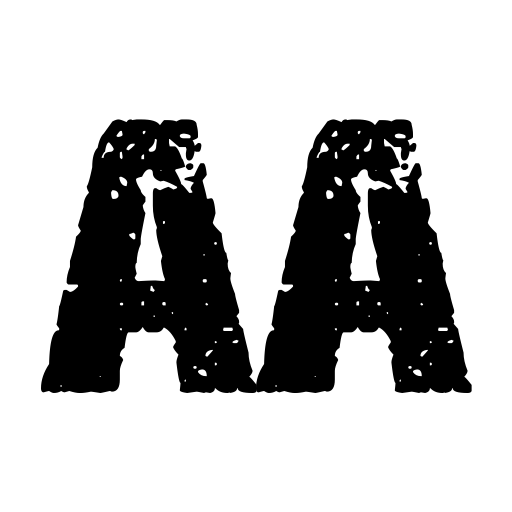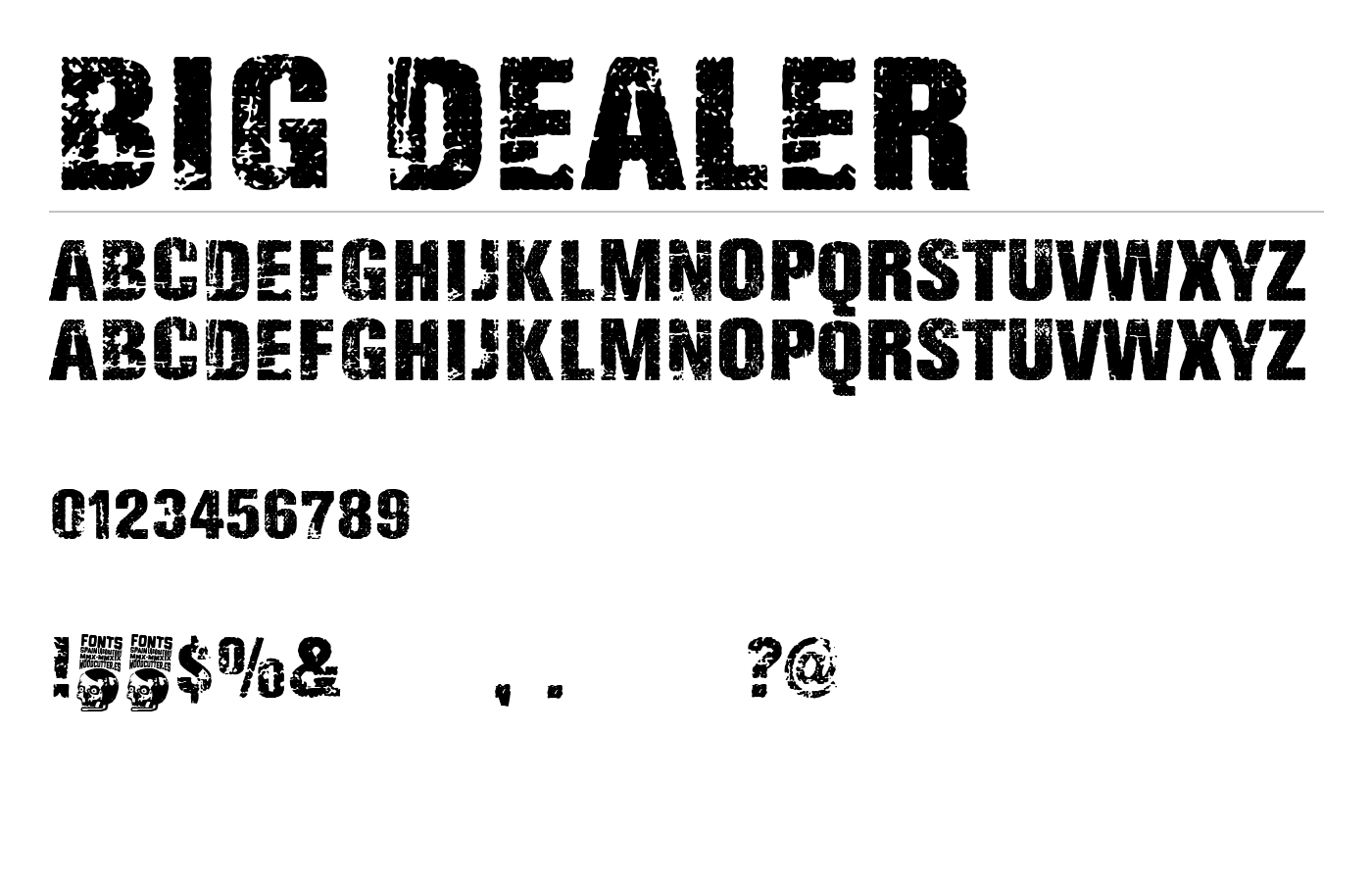
Big Dealer is a bold, condensed sans serif font with a distressed texture that gives it a rugged, vintage feel. Its strong, blocky letterforms combined with rough, worn edges make it perfect for designs that need a gritty, impactful look, such as posters, logos, or branding with an industrial or retro vibe. This font works well in headlines and display settings where boldness and character are key.
Big Dealer Font
About Big Dealer Font